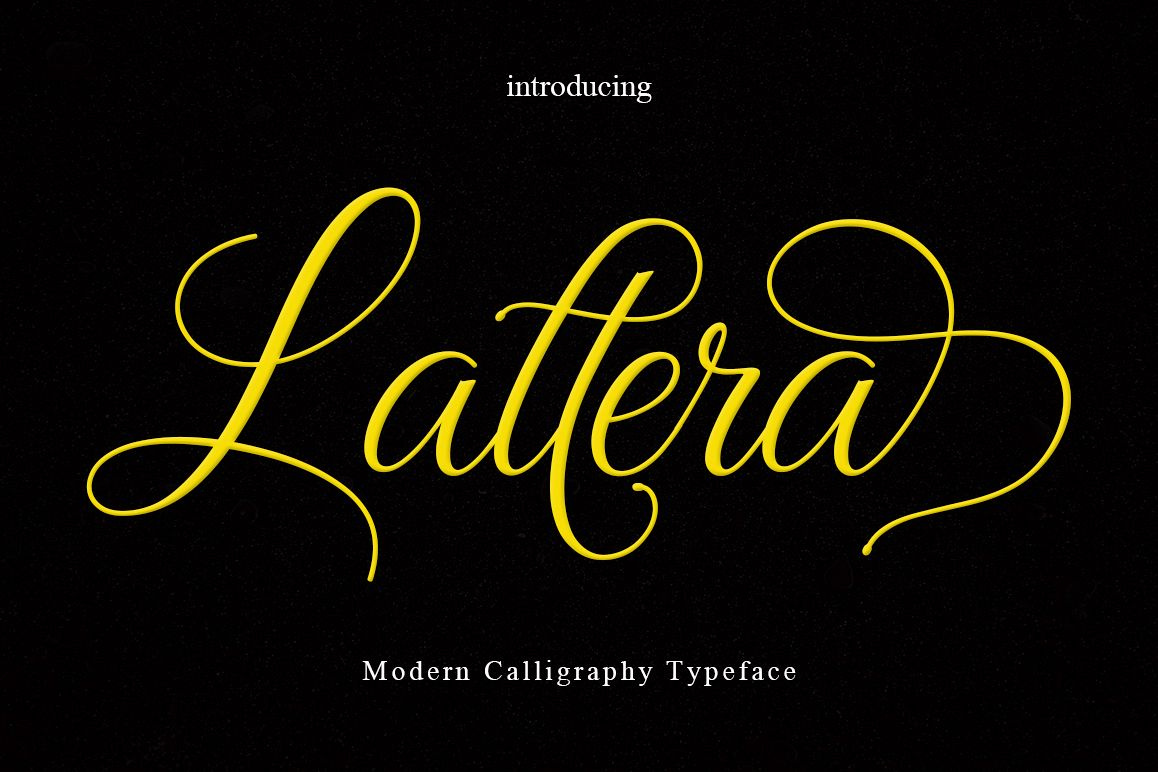
Lattera Script Font
This elegant script typeface is perfect for luxury wedding invitations, high-end beauty product packaging, sophisticated fashion branding, exclusive boutique signage, premium greeting cards, upscale restaurant menus, romantic event materials, and refined personal stationery. Lattera Script Font delivers graceful sophistication in applications where feminine elegance and handcrafted luxury are central to memorable brand experiences.
What makes Lattera Script Font so exciting is its masterful blend of calligraphic artistry and contemporary elegance. The font features flowing letterforms with graceful flourishes and connecting strokes that capture the beauty of skilled penmanship. Each character has been thoughtfully designed to maintain excellent legibility while expressing refined femininity and luxury craftsmanship. The typeface's romantic personality creates an atmosphere of exclusivity and personal attention, making it perfect for premium brands seeking to communicate intimate luxury and bespoke quality through authentic handwritten aesthetics.
The Lattera Script Font includes essential variations: Regular, Bold, Swash, and Ornamental versions. This elegant collection provides designers with sophisticated tools to create layered compositions and establish luxurious typographic treatments. Each style maintains the font's inherent grace while offering different levels of decorative flourish for various high-end applications and romantic design themes.
Whether you're developing luxury brand identities, creating premium wedding materials, or designing exclusive fashion campaigns, Lattera Script Font Free Download provides the refined elegance that discerning clients expect. Its sophisticated character makes it particularly suitable for bridal services, luxury cosmetics, high-end fashion boutiques, and premium lifestyle brands. The font's graceful presence ensures memorable impact in both print applications and digital platforms, while its timeless appeal connects contemporary luxury with traditional calligraphic artistry.
This exquisite script typeface represents the perfect choice for designers who understand the power of handcrafted elegance in creating authentic luxury brand experiences.